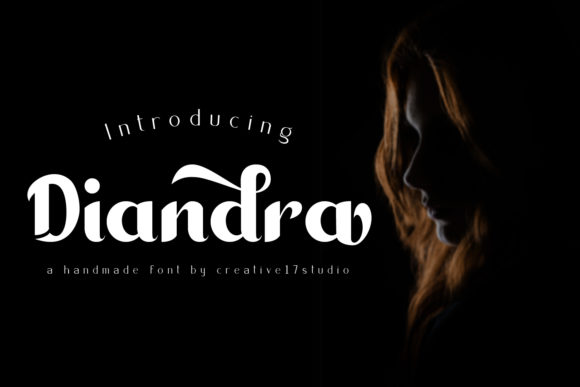
Immerse yourself in the world of vintage charm with Diandra Font, a captivating script font that exudes a timeless allure. Created by the talented Creative17studio, Diandra is a visual masterpiece that captures the essence of retro logos, adding a touch of nostalgia and elegance to your designs.
Diandra's bold and confident strokes command attention, evoking a sense of strength and dynamism. Its carefully crafted characters dance across the page, creating a visual symphony that's both visually appealing and emotionally resonant. Whether you're crafting a striking headline or designing a captivating logotype, Diandra promises to elevate your creative vision.
With its PUA encoding, Diandra grants you effortless access to a treasure trove of glyphs and swashes, empowering you to unleash your creativity and add intricate details to your designs. Experiment with different combinations, mix and match elements, and let your imagination soar. The possibilities are endless with Diandra, inviting you to embark on a journey of self-expression and artistic exploration.